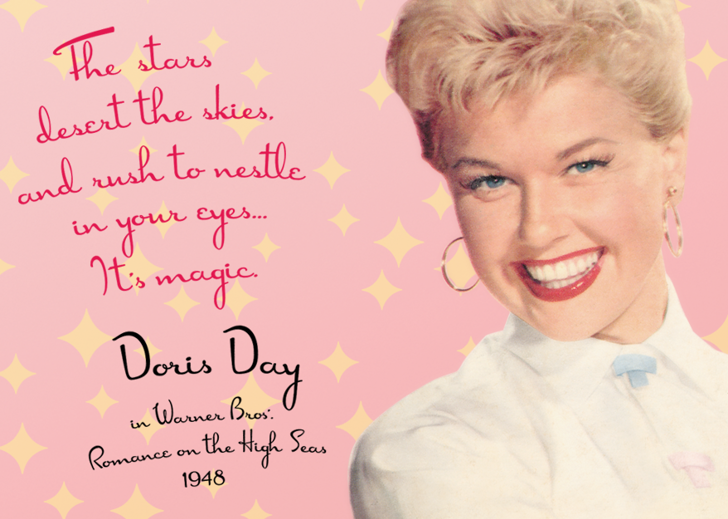
Dorisday font is pretty much a collage of letters that appeared in 1940's. Dorisday font is pretty much a collage of letters that appeared in 1940's thru 60's. The font version is 2.000 and its license is: